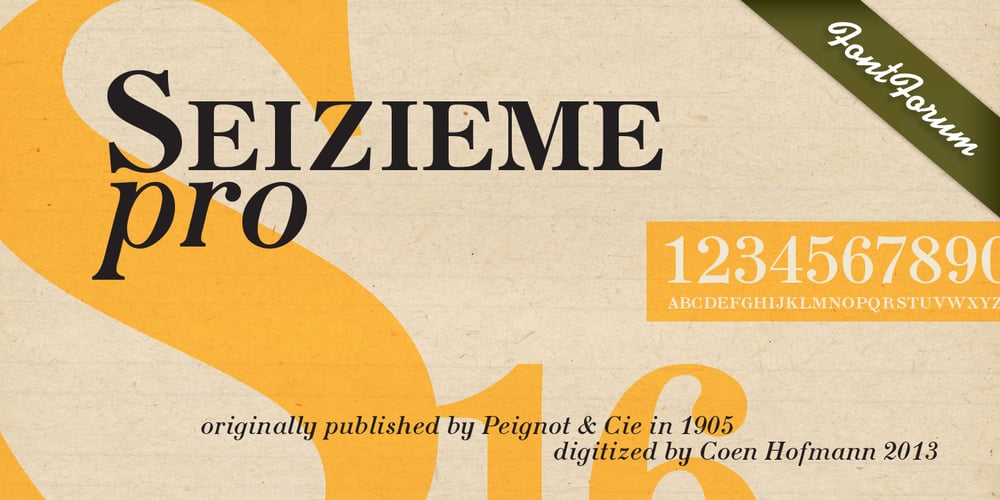
Seizieme
Seizieme font
Seizieme Font Family was designed by Coen Hofmann and published by URW Type Foundry. Seizieme contains 3 styles and family package options. In 1905 the Parisian typefounders Peignot & Cie. issued their Série 16. This clear roman with a large x-height and an italics soon enjoyed a great popularity. Coen Hofmann’s drawings made for the Seizième follow the original Peignot Série 16 as close as possible. The regular font has the original small caps, while all members of the family are enhanced, next to the ranging ones, with old style figures. Also superior and inferior figures are available. The original series did not have a bold version. This was, however, carefully drawn for this digital rendition. The Série 16 and its versions for the composing machines were much used for the type setting of scientific publications. That is why a comprehensive set of mathematical and sundry characters are added to the Seizième fonts. Next to the accented characters for the several West and East European languages the Seizième was also enhanced with a Cyrillic, also available in regular, italic and bold versions.